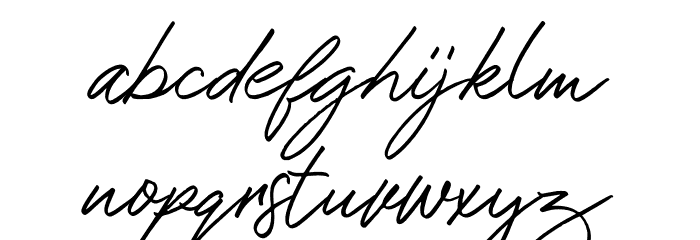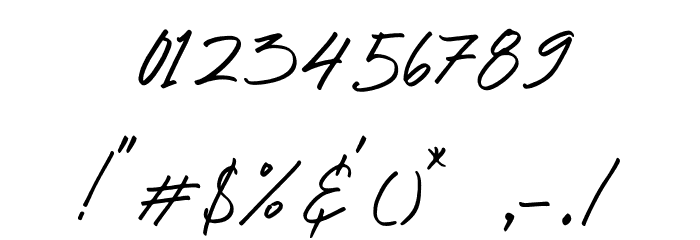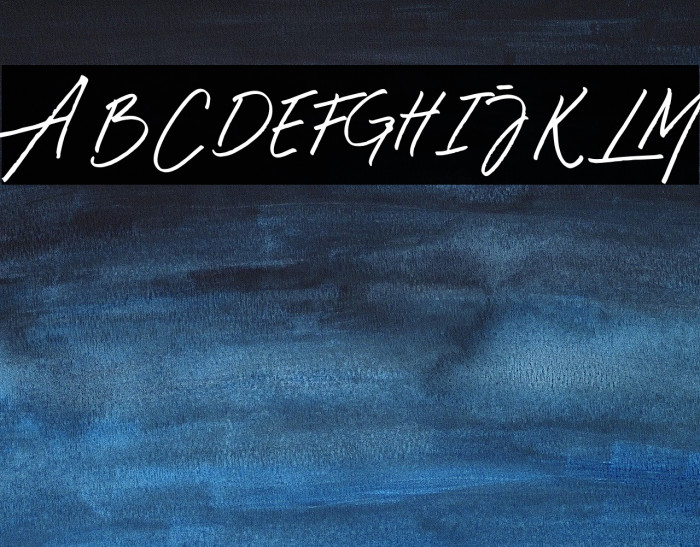
Mustank Font
This font features a dynamic and fluid handwritten style, characterized by its elegant and flowing script. The letters are connected in a cursive manner, giving it a personal and artistic touch. The uppercase letters are slightly more pronounced, while the lowercase letters maintain a consistent flow, enhancing readability. The numbers and special characters are designed to match the overall aesthetic, ensuring a cohesive look. The strokes vary in thickness, adding a natural and spontaneous feel to the text. This font is ideal for projects that require a personal or creative flair, such as invitations, greeting cards, or artistic branding.
A fluid and elegant handwritten script with dynamic strokes.
- Proposed Projects: Ideal for invitations, greeting cards, artistic branding, and personal projects.
- Use Case: Logos, Headlines, Artistic projects